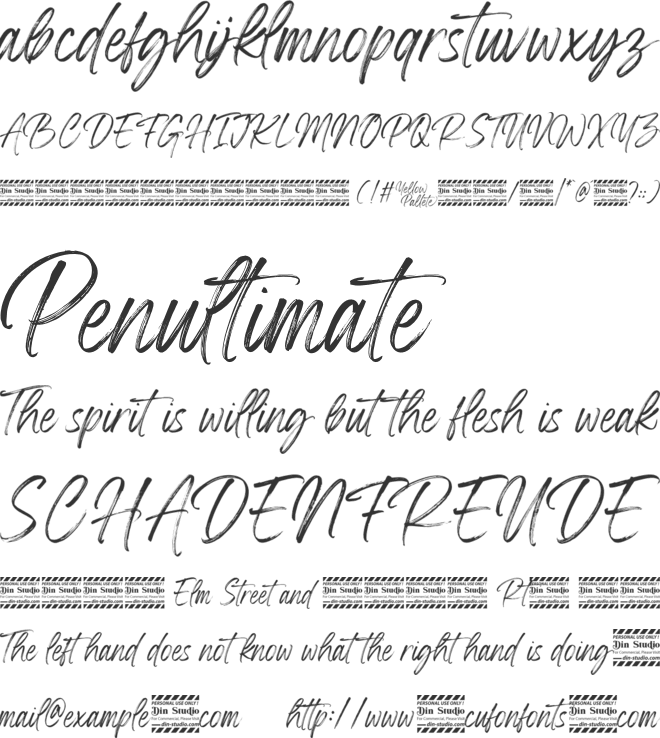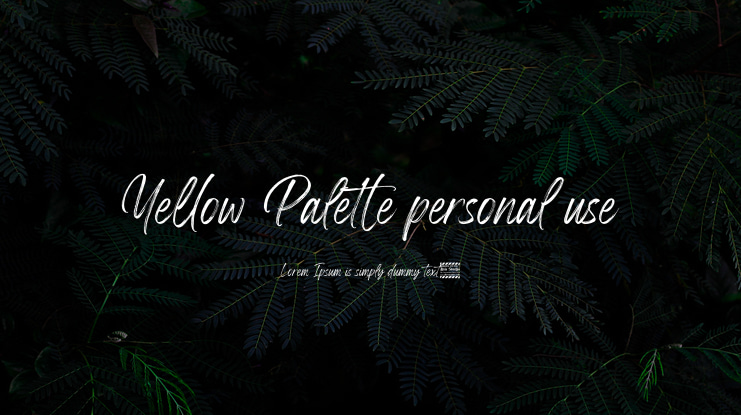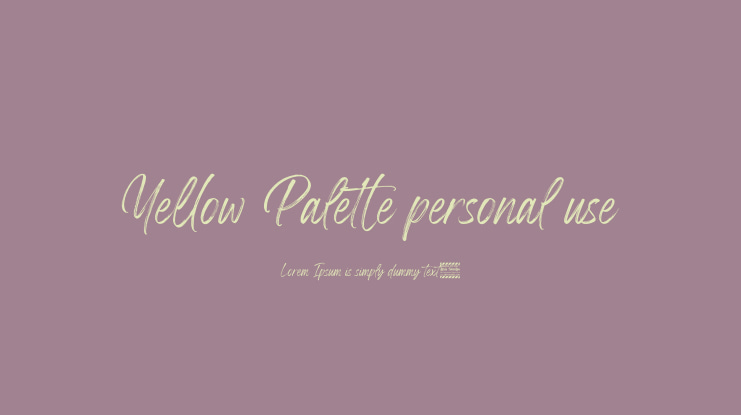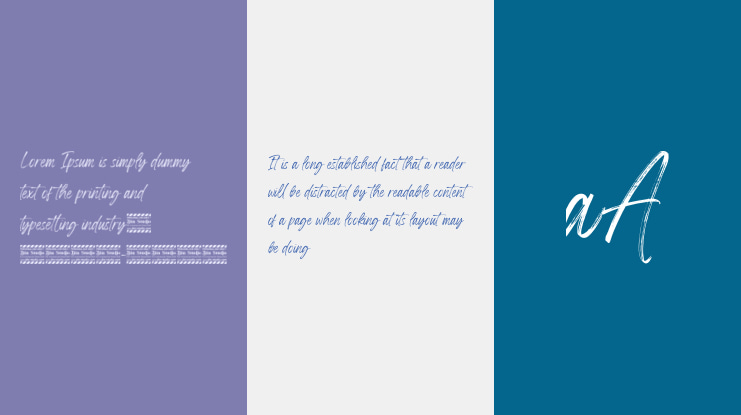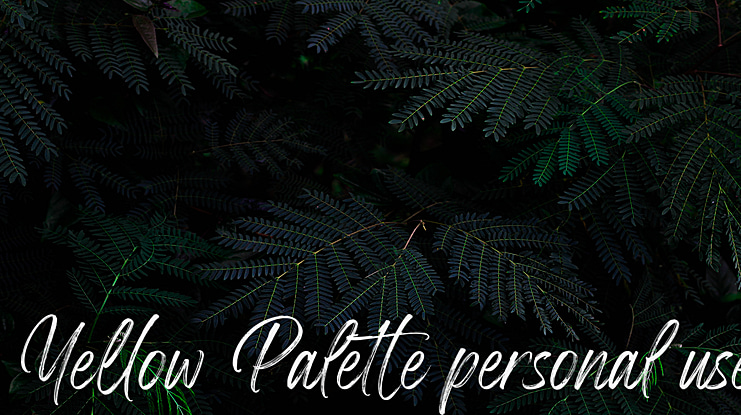
Product Description :
Yellow Palette is a gorgeous font, designed with a modern vibe. This handwritten font is perfect for anything adventurous and direct. Every stroke and curve was created to entice happiness and elegance. A real headturner for your presentation, designs, branding, quotes, invitation, website illustrations, and much more.